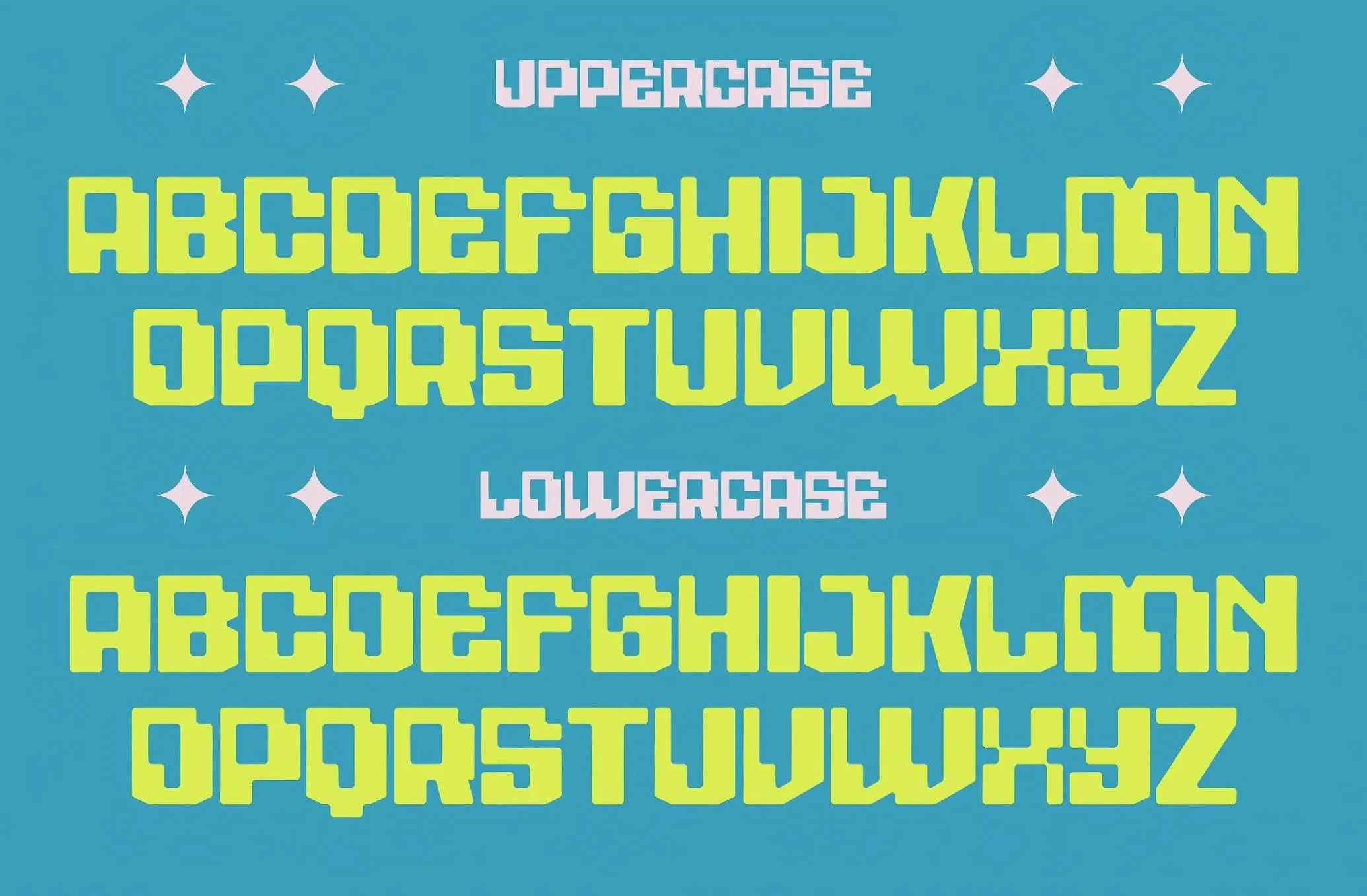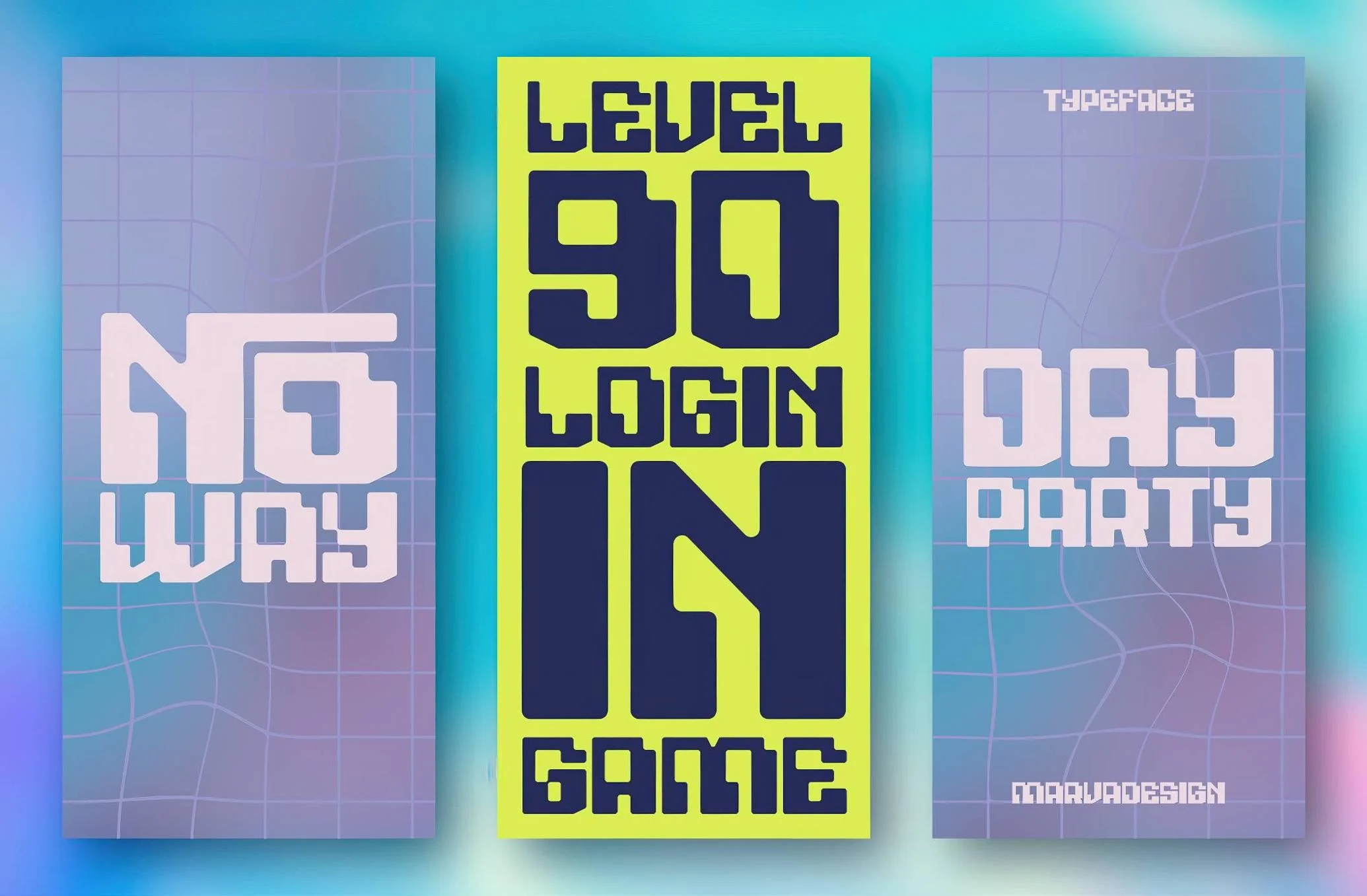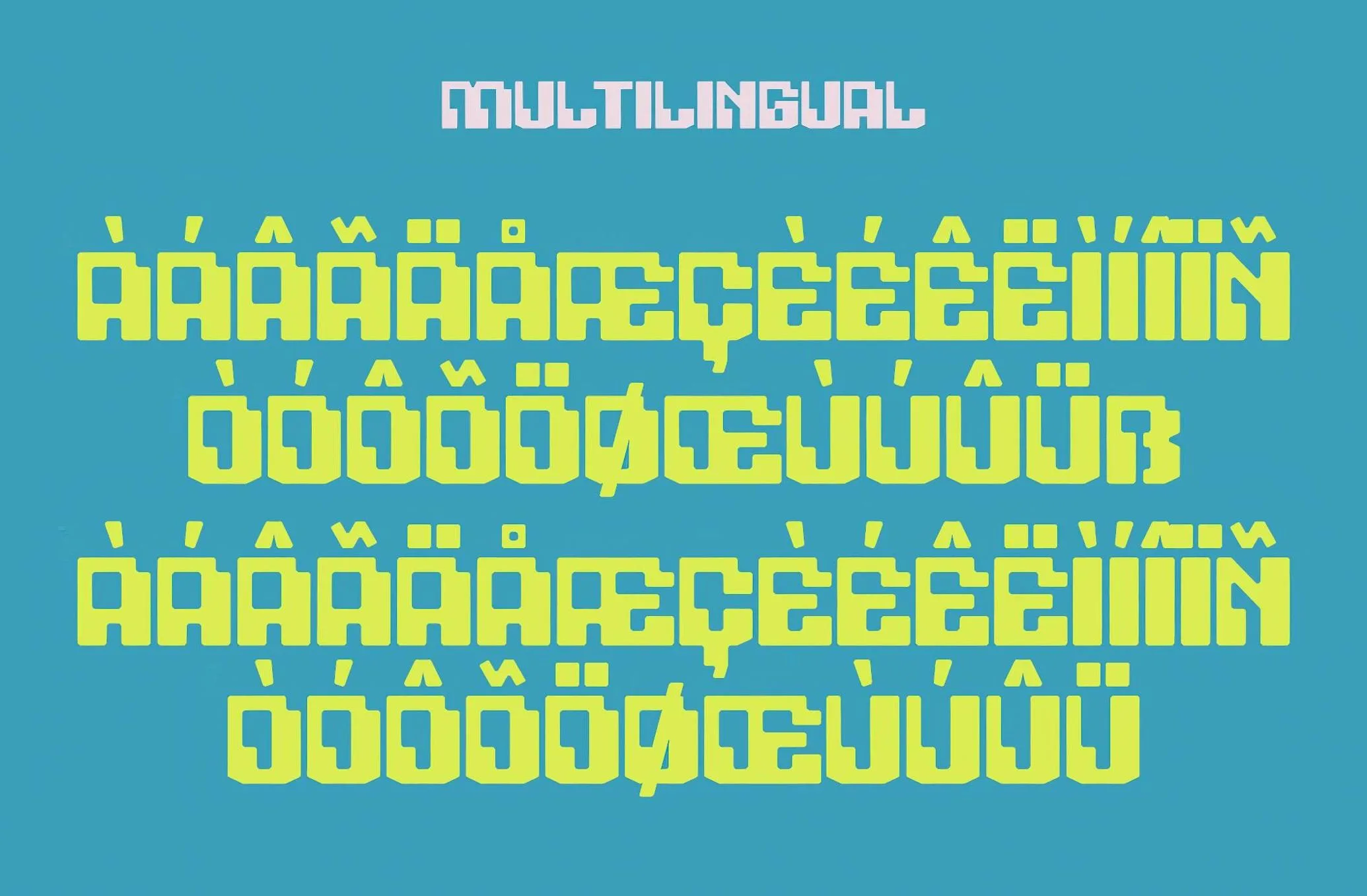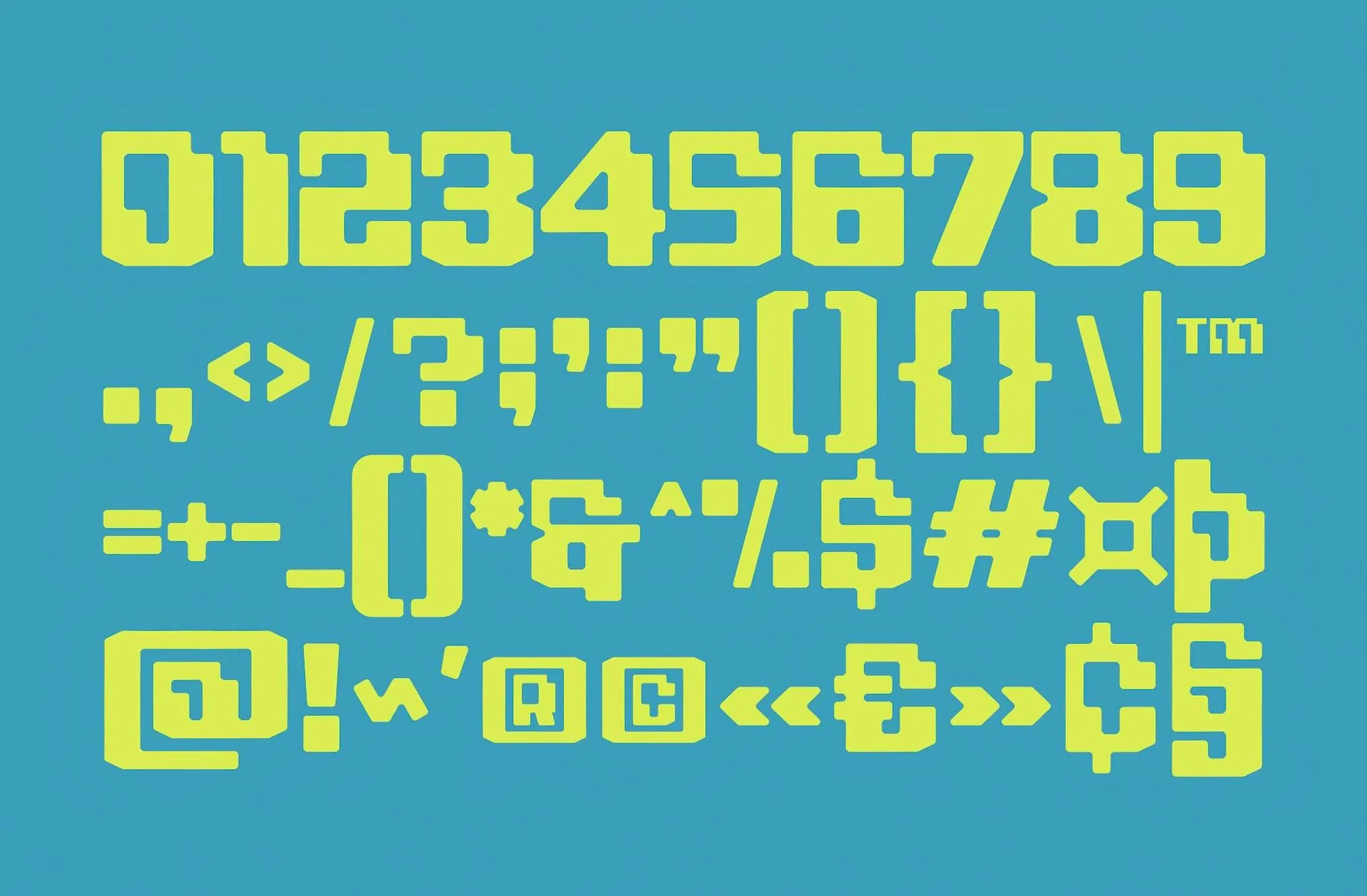
Noser — Y2K Display Font with Glitchy Retro-Futuristic Vibes
Step back into the future with Noser, a bold Y2K display font that captures the sugary glitch of early web graphics, dial-up dreams, and pixel-perfect rebellion. Inspired by the chaotic beauty of the late ’90s and early 2000s internet aesthetic, Noser brings that nostalgic-meets-futuristic energy straight into your design toolbox.
With its pixelated edges, warped shapes, and subtly chaotic rhythm, this typeface feels like a bubblegum pop song from the dot-com era. Whether you’re designing for fashion, music, digital posters, or aesthetic social media posts, Noser delivers retro-futuristic flair with a modern twist.
• Uppercase & lowercase letters
• Numbers
• Punctuation marks
🪩 Where to Use Noser — A Glitchy Y2K Aesthetic
This font is made for bold visuals. If you’re working on:
• Y2K fashion branding or apparel designs
• Album covers for synthpop, hyperpop, or vaporwave genres
• Web design projects that echo the early 2000s aesthetic
• Aesthetic Instagram carousels or TikTok title slides
• Event flyers for underground raves, DJ nights, or retro parties
• Creative posters or print zines with glitchcore or cyber grunge looks
Noser will fit right in.
Its sugar-glitch style makes it perfect for youth-focused brands, nostalgic web campaigns, and anything dripping in low-res internet energy.
💡 Why Designers Love Noser
Noser isn’t just a font—it’s a vibe. It brings back that feeling of navigating MySpace profiles, downloading Winamp skins, or customizing HTML blogs on GeoCities. With carefully crafted characters and an edge of digital distortion, Noser stands out in the sea of clean, corporate typefaces.
If your next design needs a bit of chaos, charm, and digital nostalgia, Noser is your perfect match.